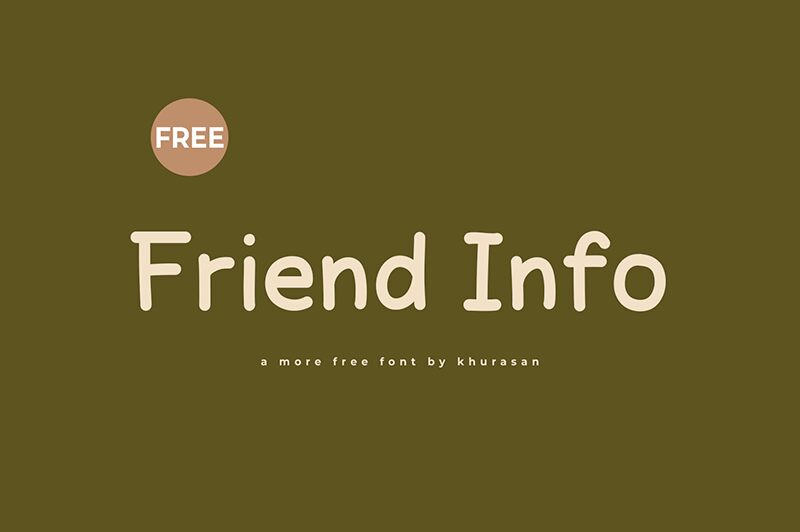
Friend Info
Friend Info, a handwritten font crafted by Khurasan, exudes a warm, inviting charm that captivates at first glance. Its organic, fluid strokes and playful character imbue the typeface with a distinctive personality, conveying a sense of effortless elegance. The font's textured appearance and natural flow evoke a genuine, heartfelt aesthetic, making it an alluring choice for a wide range of design endeavors.
This versatile font shines in projects that seek to cultivate a personal, hand-crafted feel. Its versatility lends itself well to branding and marketing materials, wedding invitations, greeting cards, and editorial design, where its unique character can create a memorable, heartfelt impression. The font's fluid lines and charming imperfections also make it an excellent selection for packaging, signage, and various forms of stationery, adding a touch of authenticity and character to the final product.